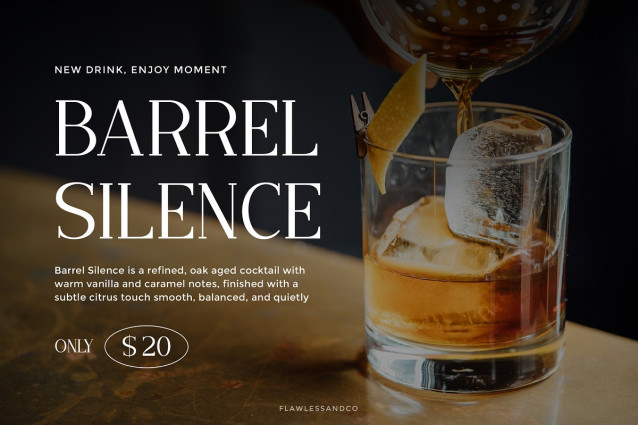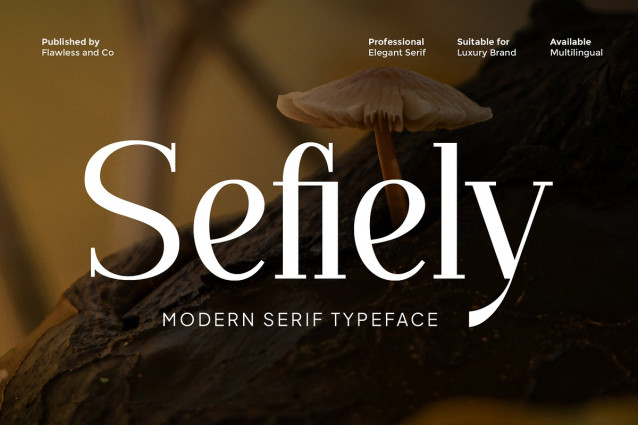
Sefiely Font
Sefiely Font is a modern serif typeface that blends timeless elegance with contemporary sophistication. Designed with graceful proportions and clean, confident serifs, Sefiely delivers a luxurious and professional feel that elevates any visual identity. Perfectly balanced between classic and modern aesthetics, Sefiely is ideal for high-end branding, logos, editorial layouts, and premium marketing materials. Its refined letterforms ensure excellent readability while maintaining a distinctive, stylish presence that stands out across both digital and print media.